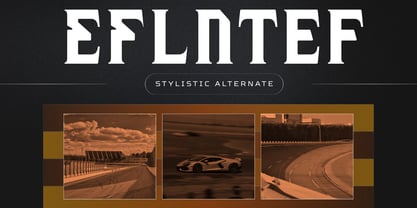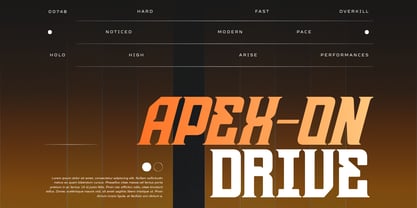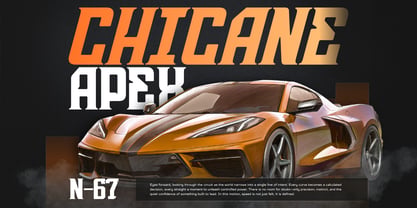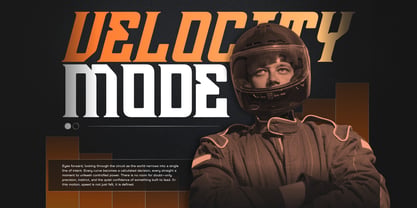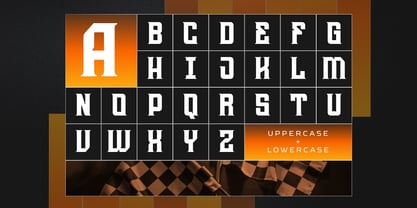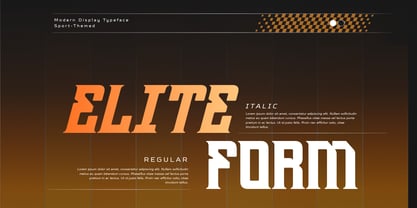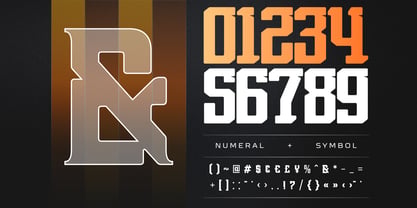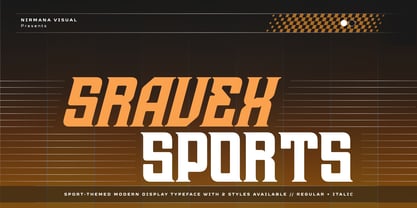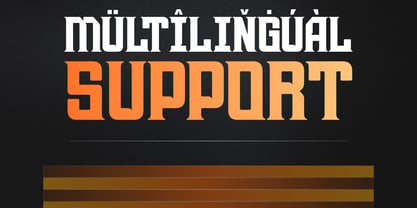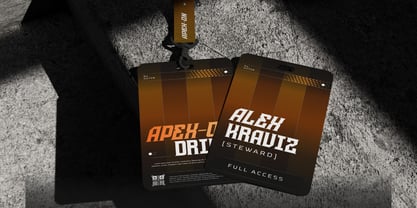
Sravex Sports
by Nirmana Visual
The Sravex Sports Font Family was designed by Sigit Dwipa and published by Nirmana Visual. Sravex Sports contains 2 styles and family package options. More about this family
Sravex Sports is a bold and futuristic sport font designed with a powerful italic style that brings speed, energy, and modern performance into every design. Perfect for sports branding, racing logos, esports, automotive projects, technology posters, apparel, and digital content. Its sharp edges and dynamic letterforms create a strong competitive look while maintaining high readability. Sravex Sports delivers a fast, aggressive, and professional character for modern branding needs.